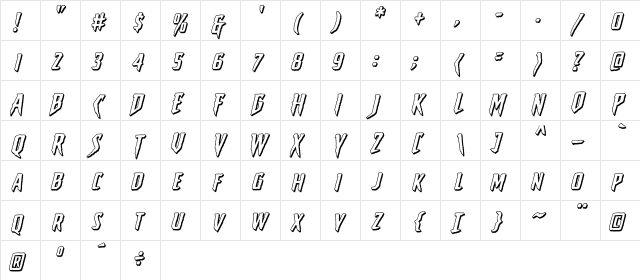
CCStickyFingersOpen Italic
| Foundry | Active Images |
| Designer | John Roshell |
Design Context for CCStickyFingersOpen Typeface
CCStickyFingersOpen is a composed and adaptable typeface that performs quietly and consistently across a wide range of design contexts. The dynamic lean of this cut emphasises speed and emphasis in any layout.
Pro Tip: Try CCStickyFingersOpen for annotation and caption copy alongside an upright companion — the contrast in angle creates a dynamic but ordered typographic system.